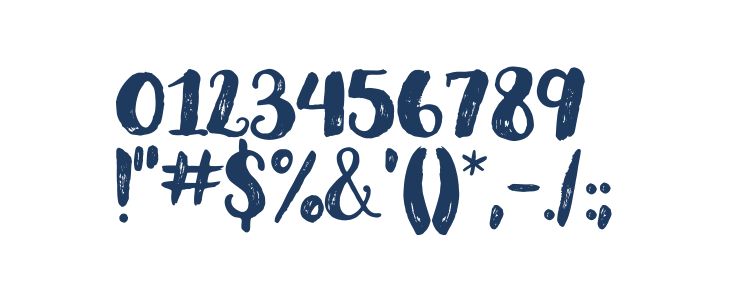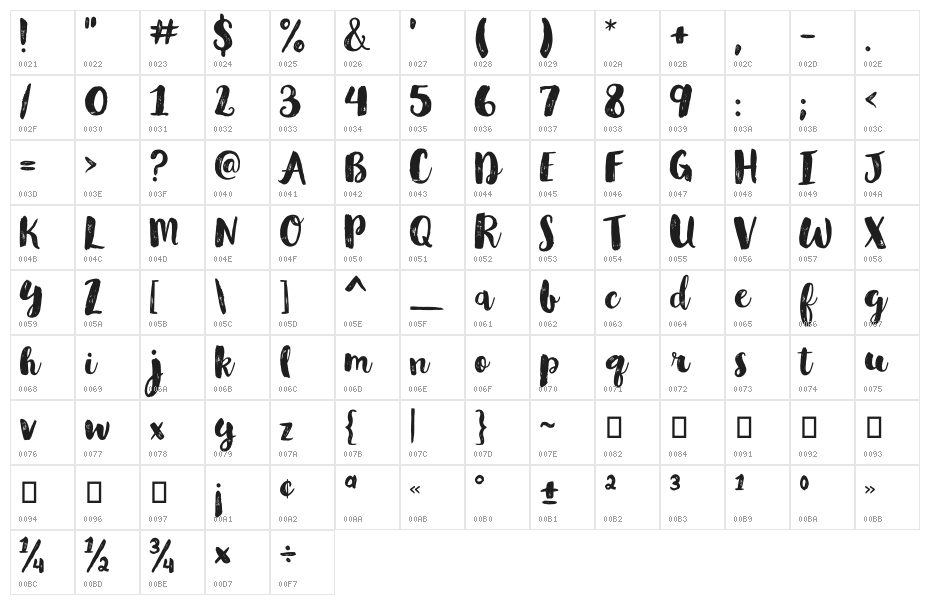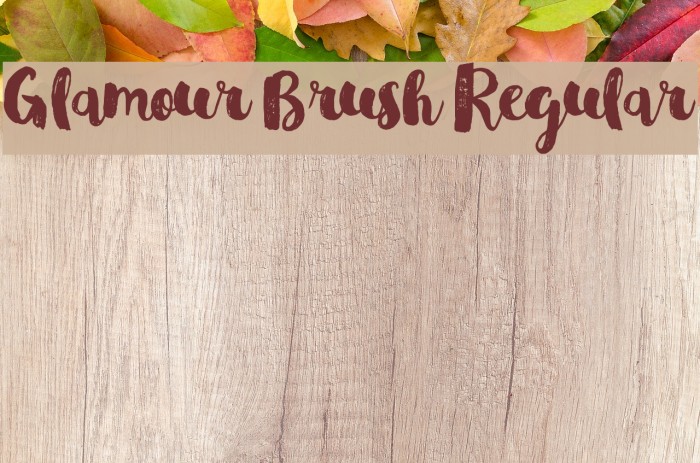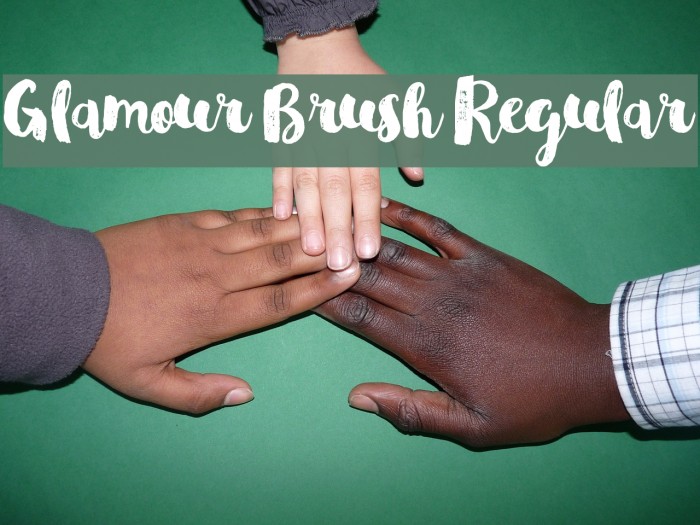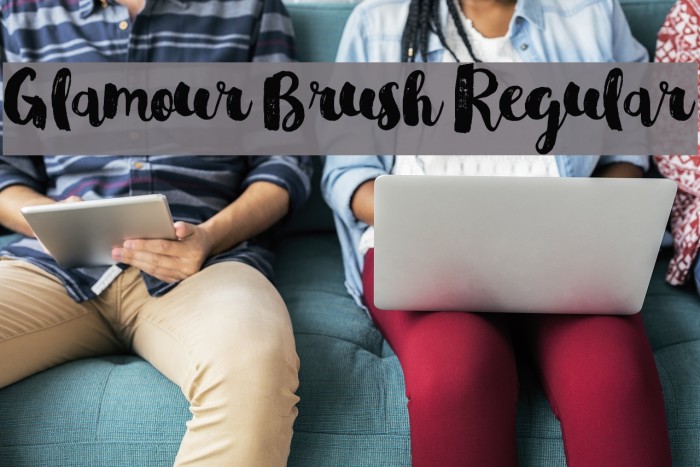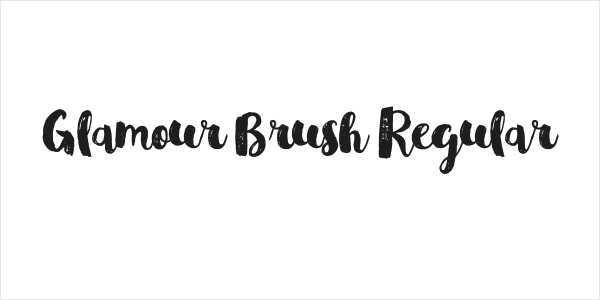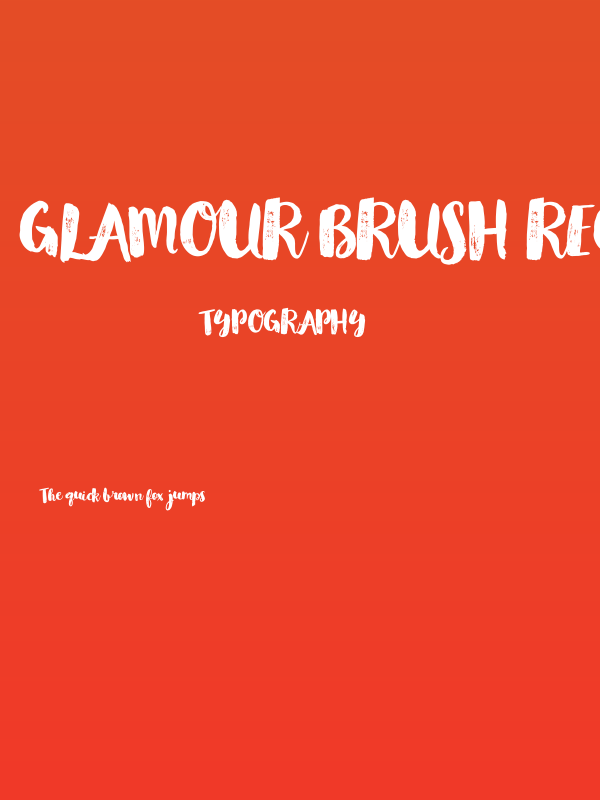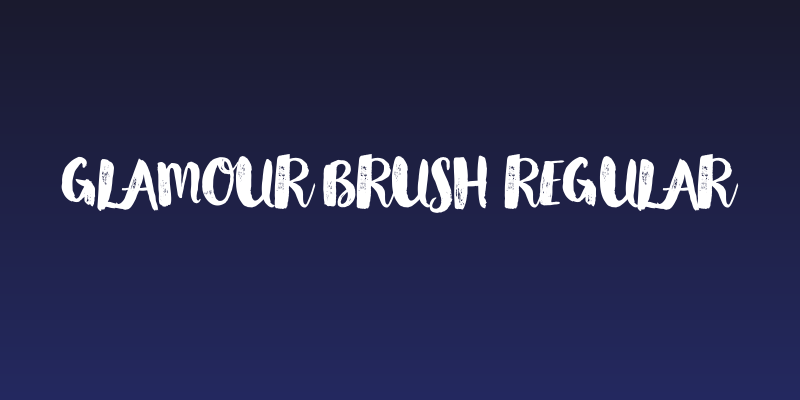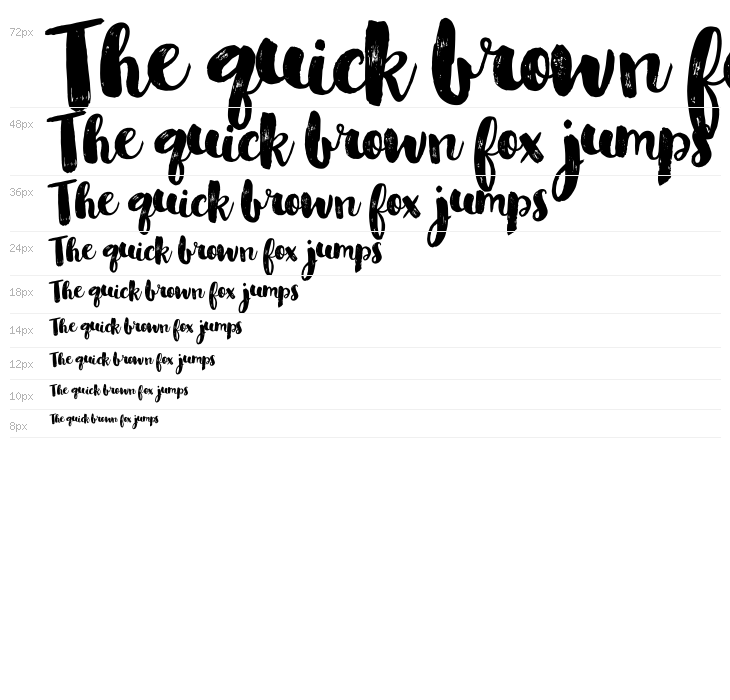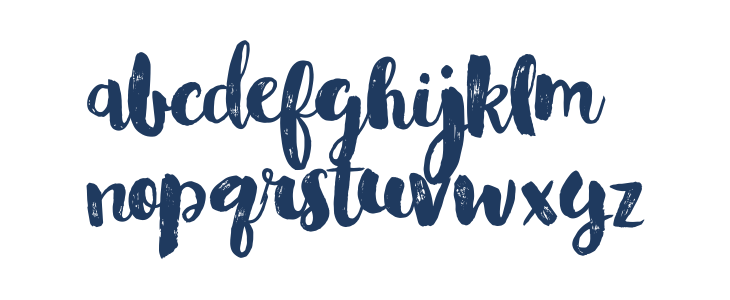
Glamour Brush Regular Font
Glamour Brush Regular Description
This font exudes a bold and expressive style, characterized by its brush-like strokes that convey a sense of movement and energy. The letters are crafted with a hand-painted appearance, featuring irregular edges and varying thicknesses that add a dynamic and artistic flair. The uppercase and lowercase letters maintain a consistent style, with a playful and slightly whimsical touch. The numbers and special characters follow the same aesthetic, ensuring a cohesive look across all elements. This font is perfect for projects that require a personal and creative touch, such as invitations, posters, and branding materials.
| Use Case | Headlines, Logos, Artistic designs |
| Proposed Projects | Ideal for creative projects like invitations, posters, branding, and artistic designs. |